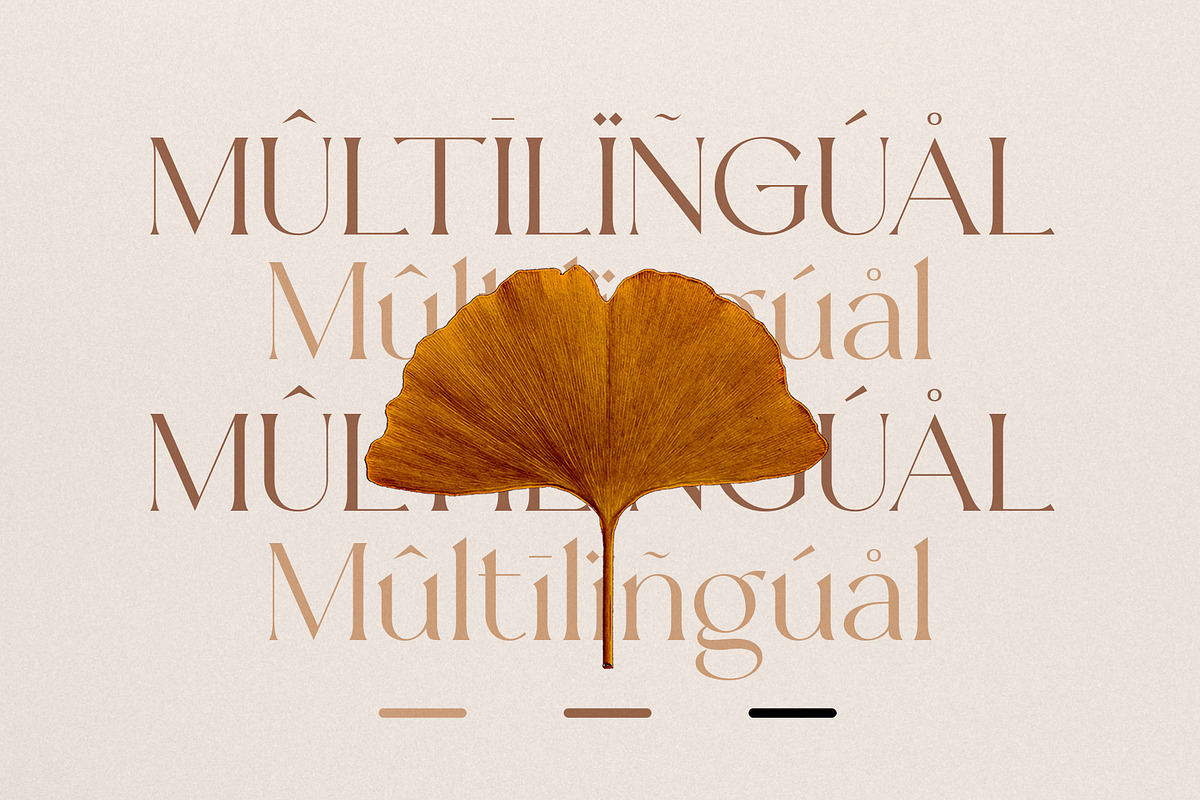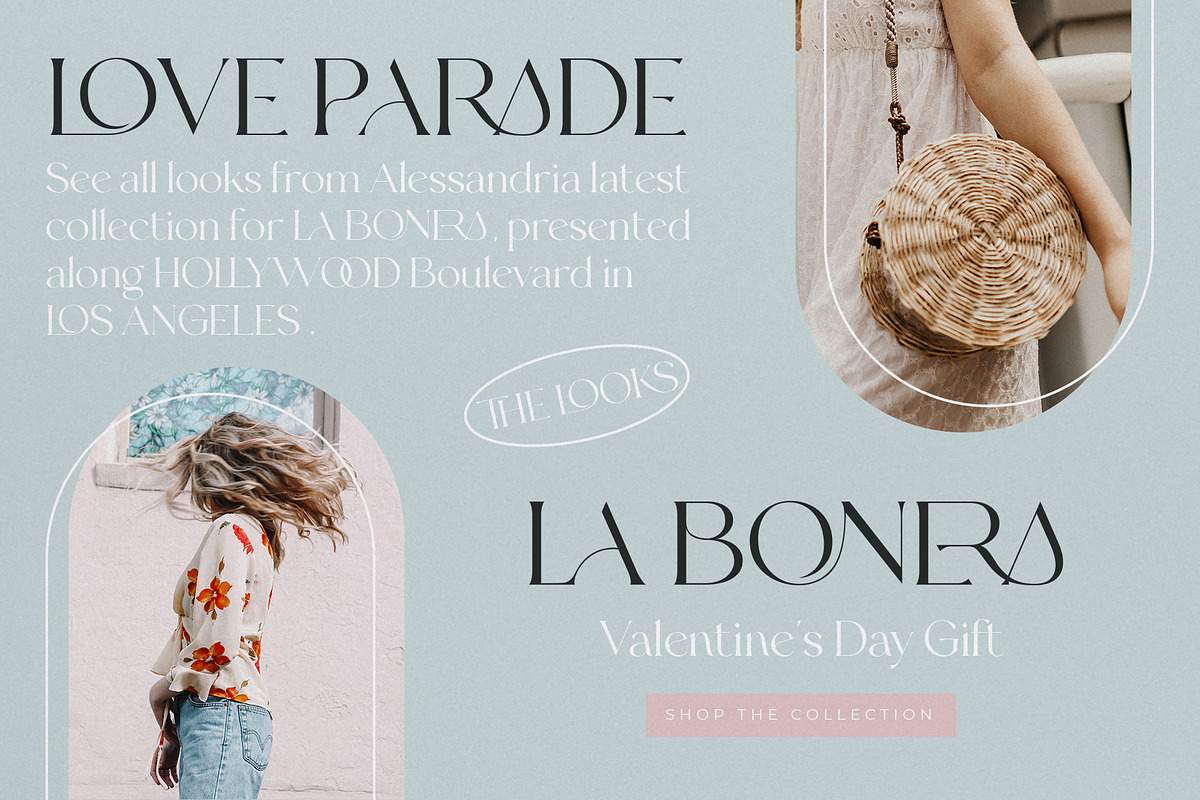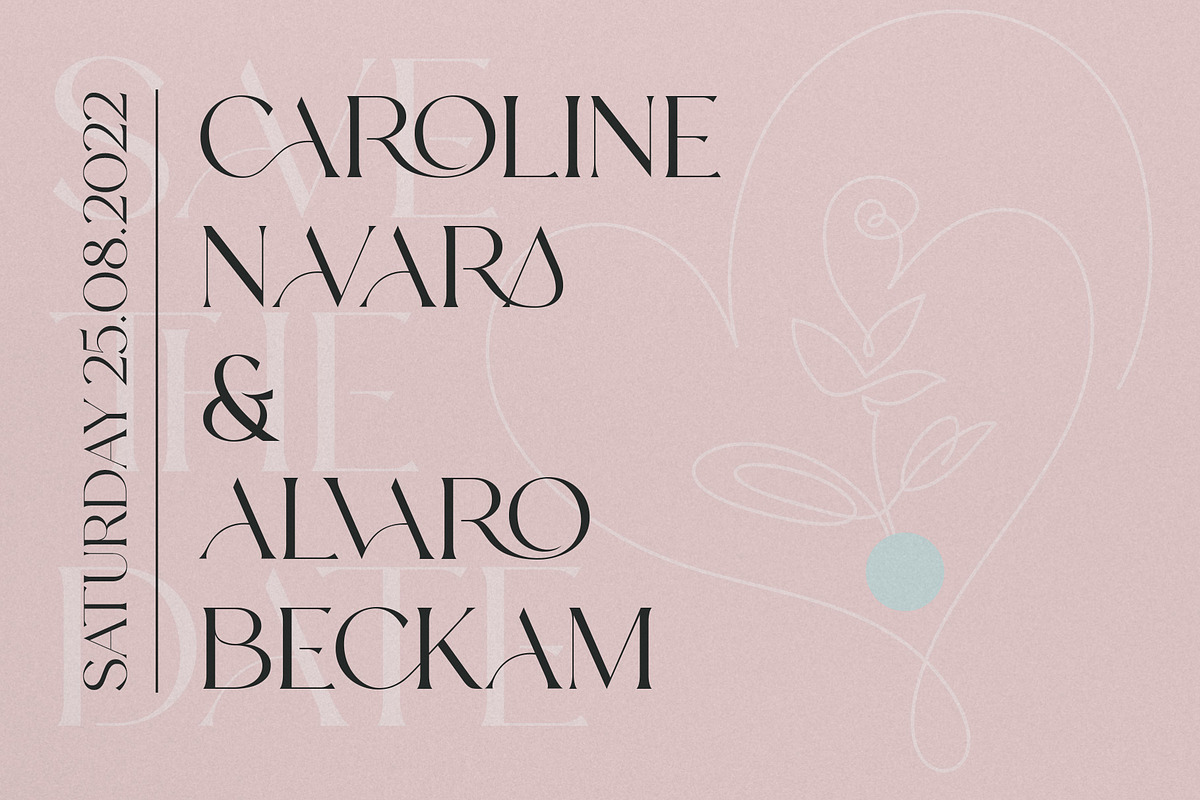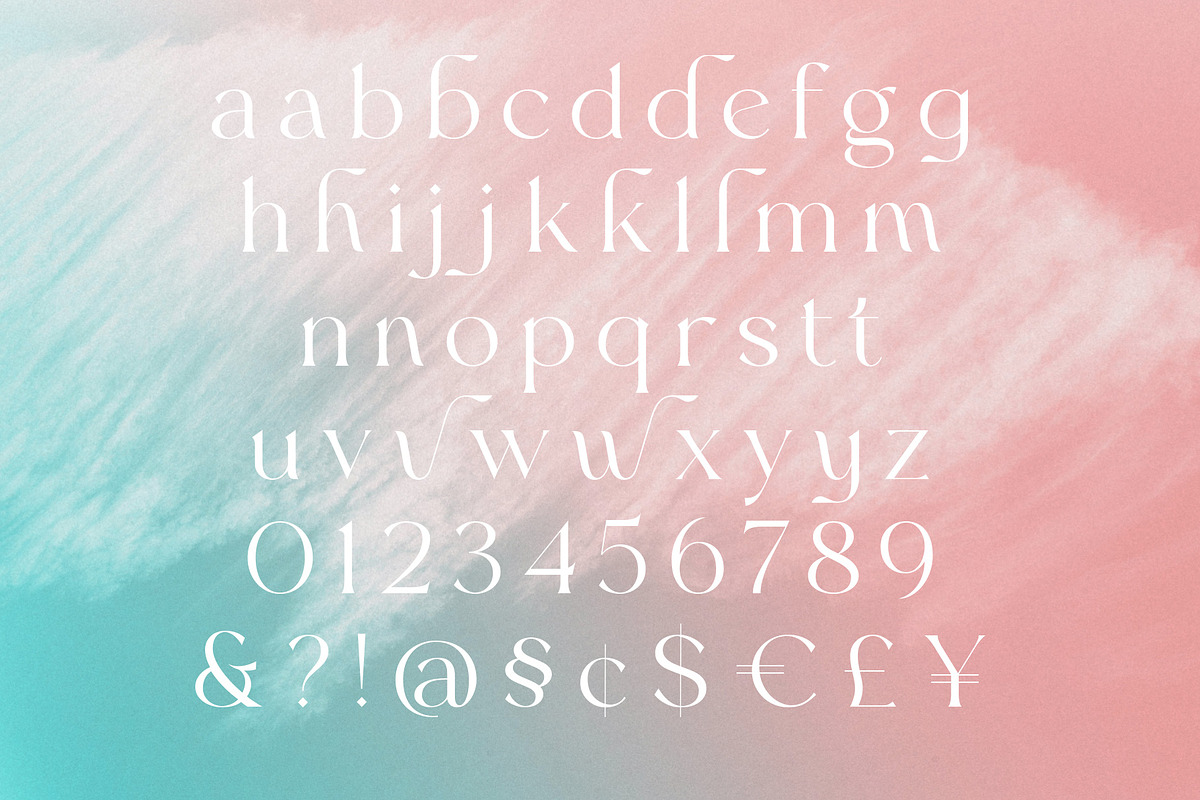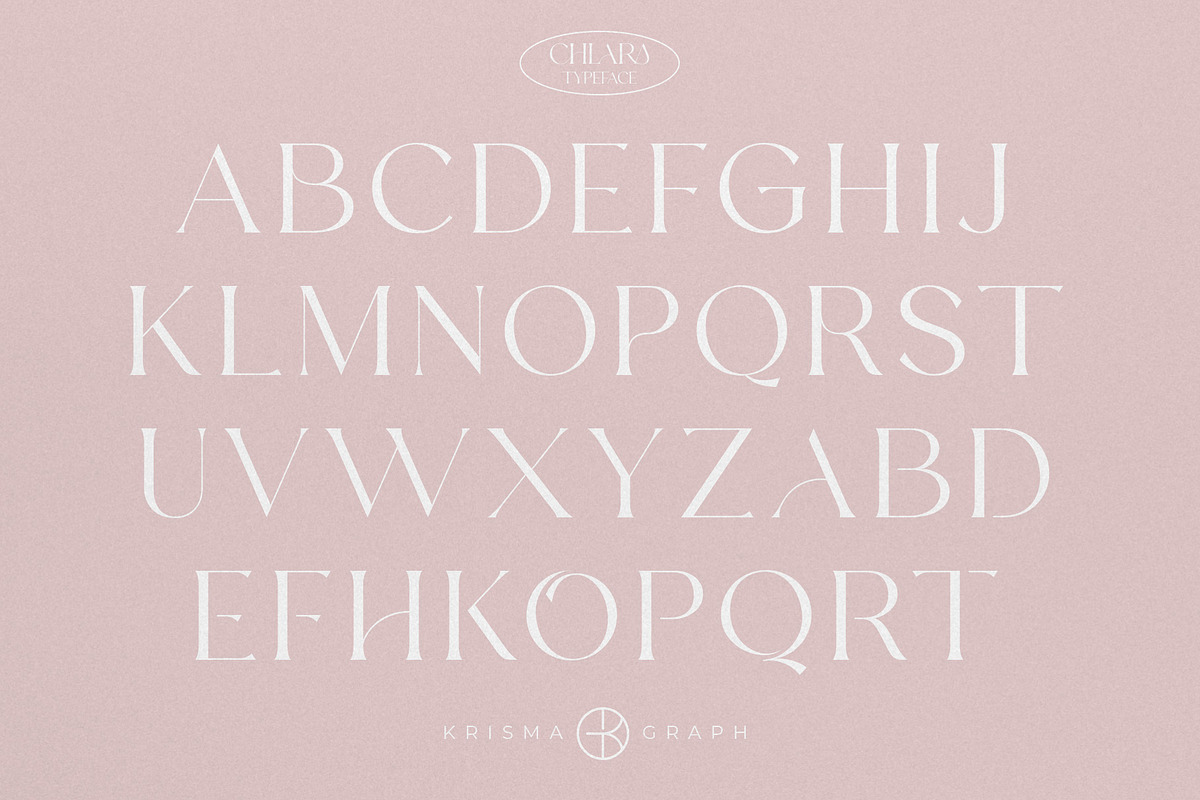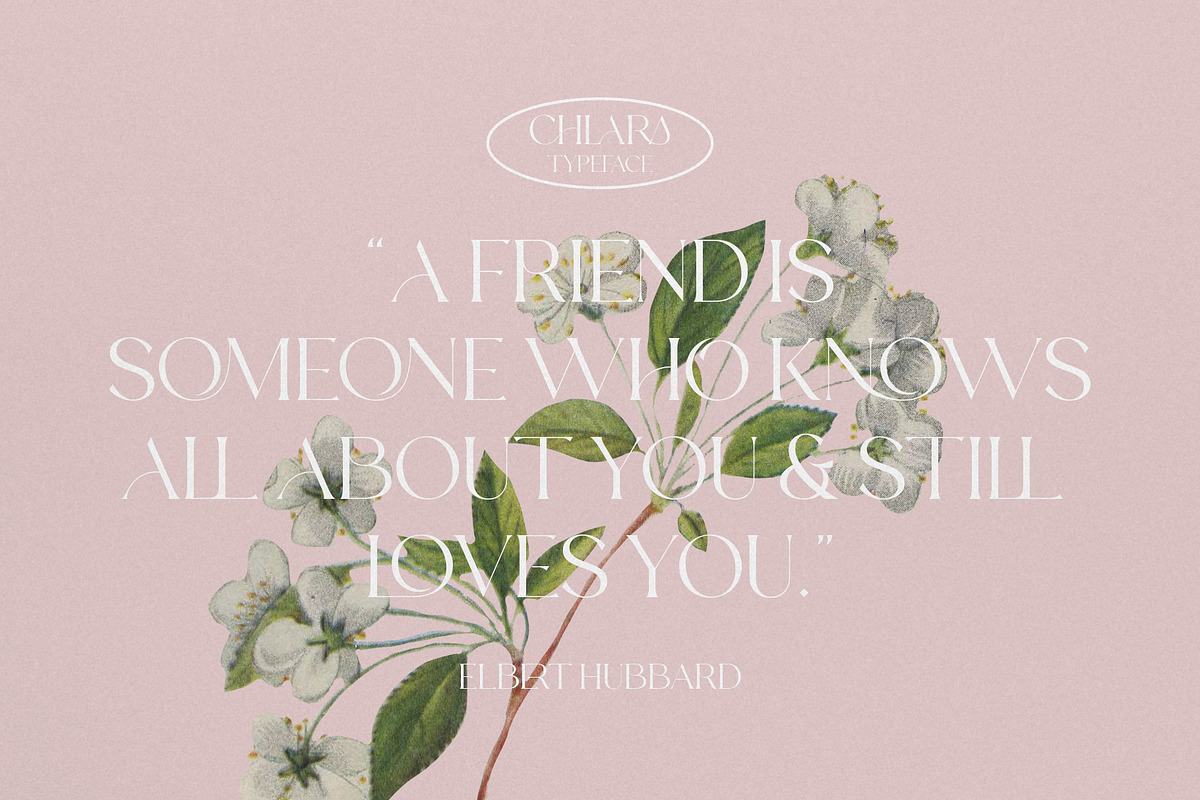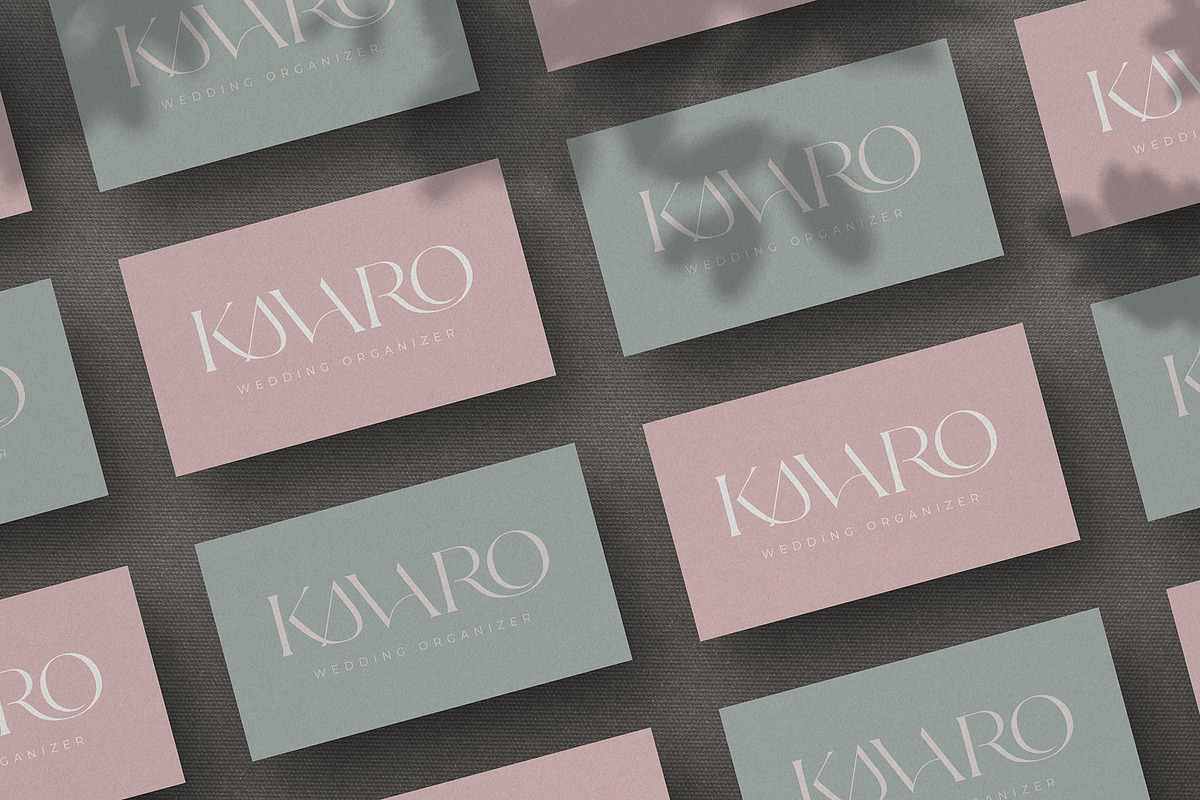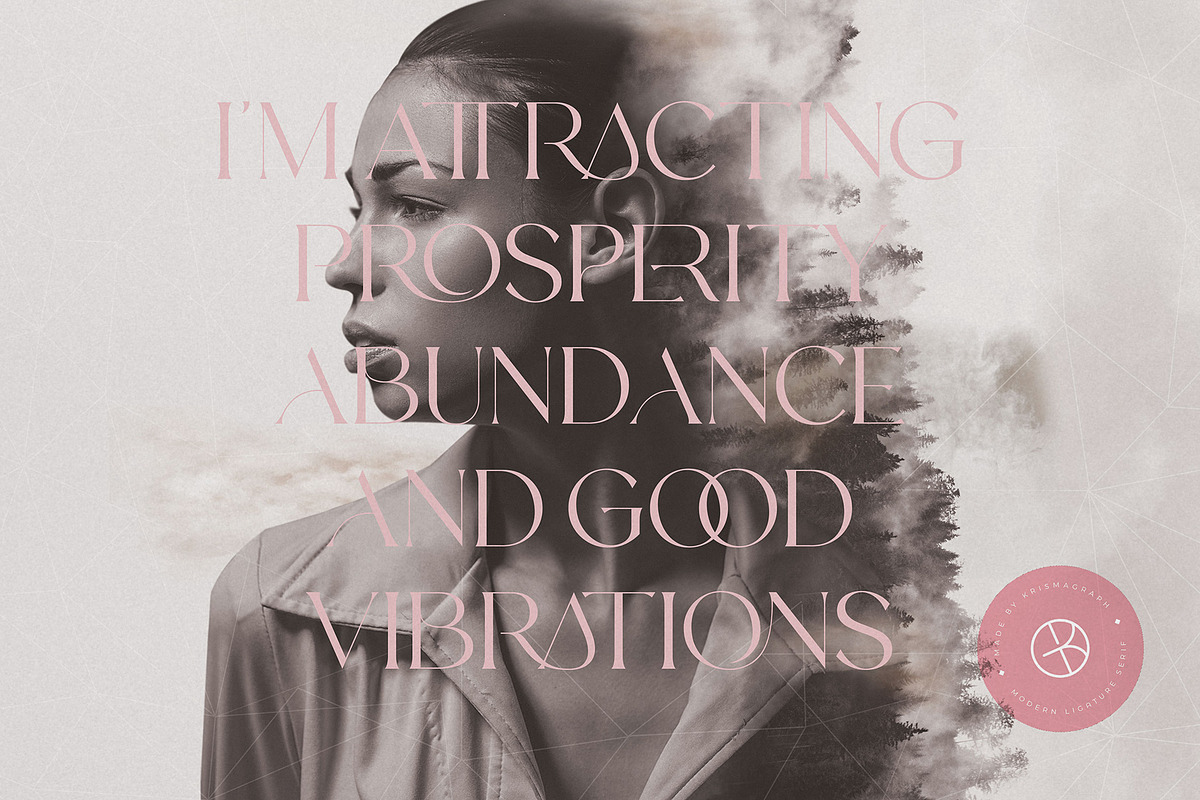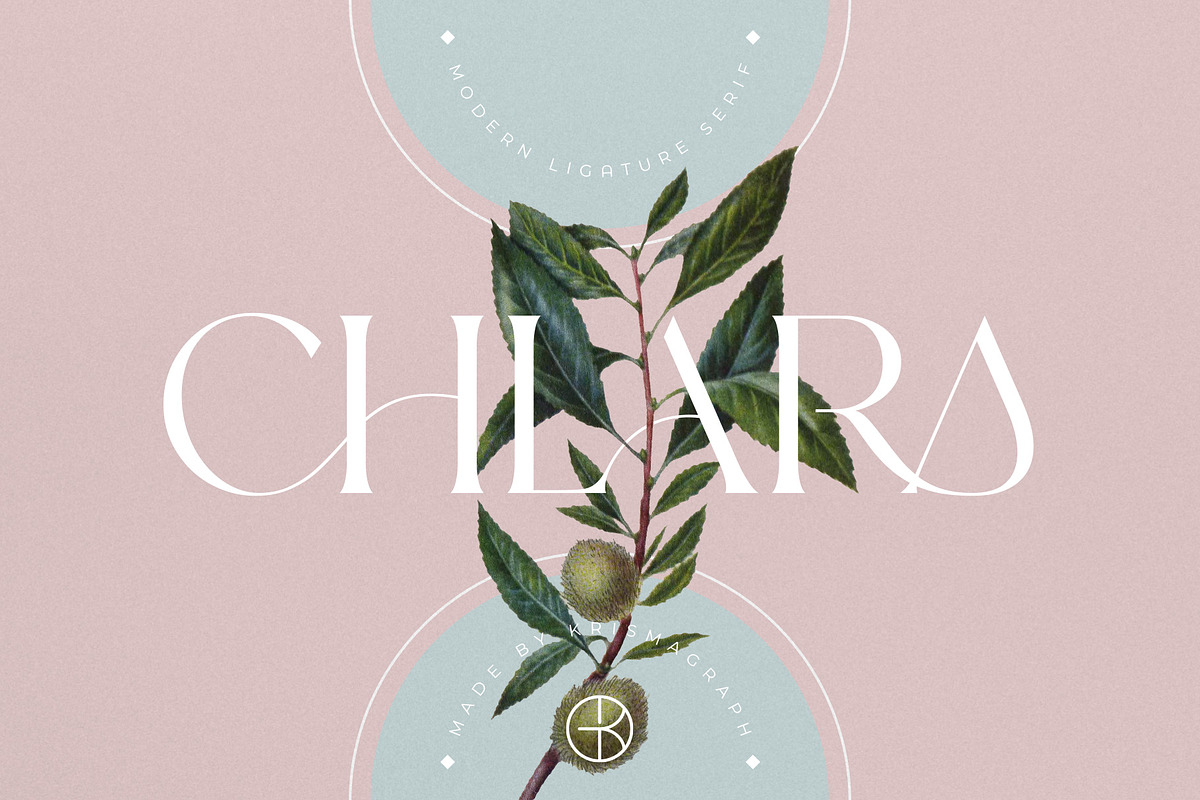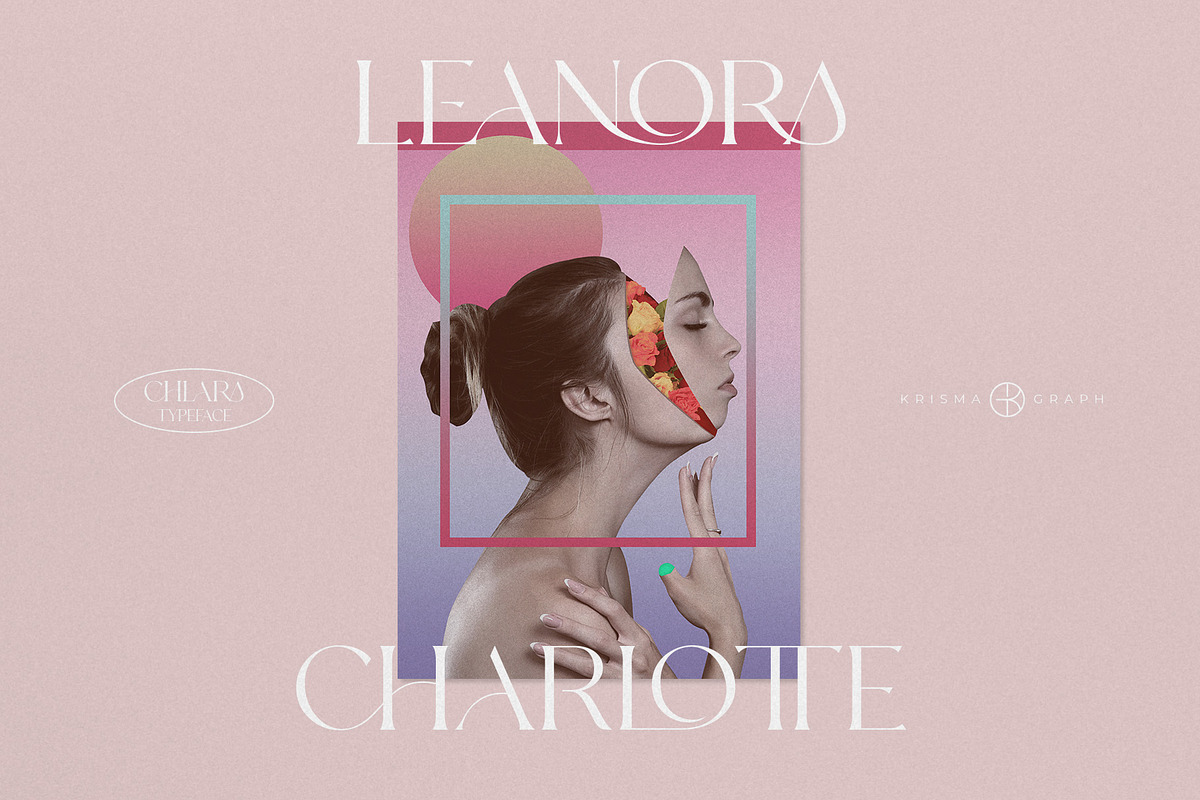
CHLARA | Modern Ligature Serif
Chlara is a Modern Ligature Serif Font. It's soft curves mixed with high contrast glyphs, give it a feminine and masculine quality. It comes with epic ligatures and alternates. Great in layout design for quotes or body copy, best used as a display for headings, logos, branding, magazines, product packaging and invitations.